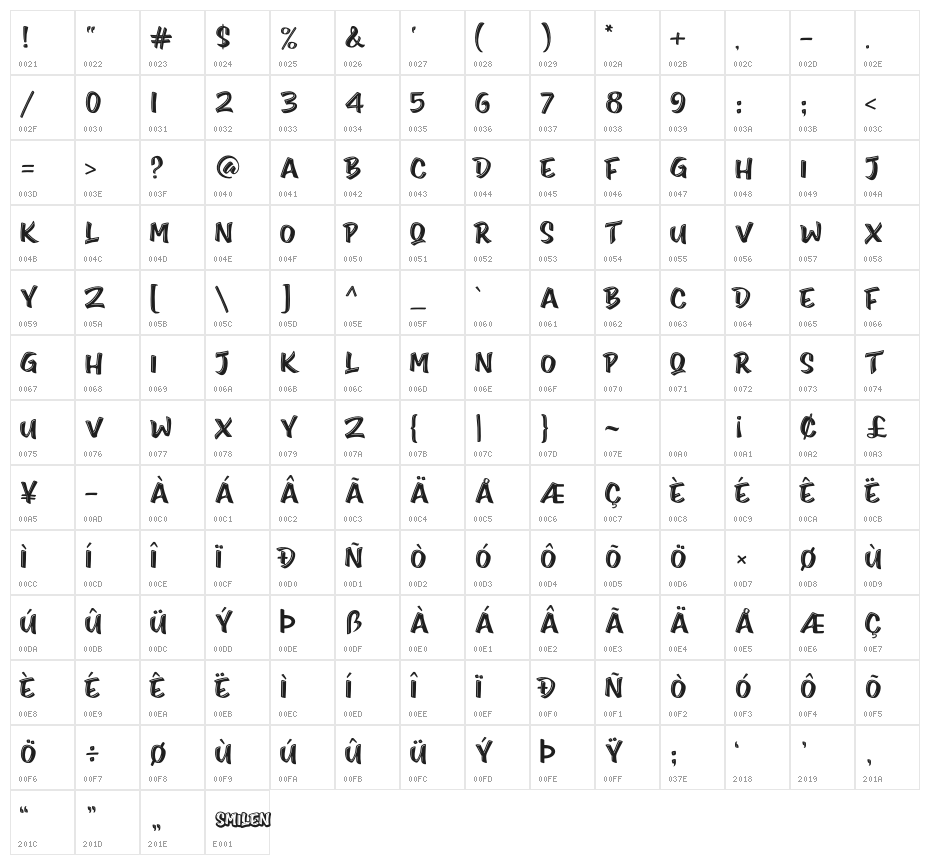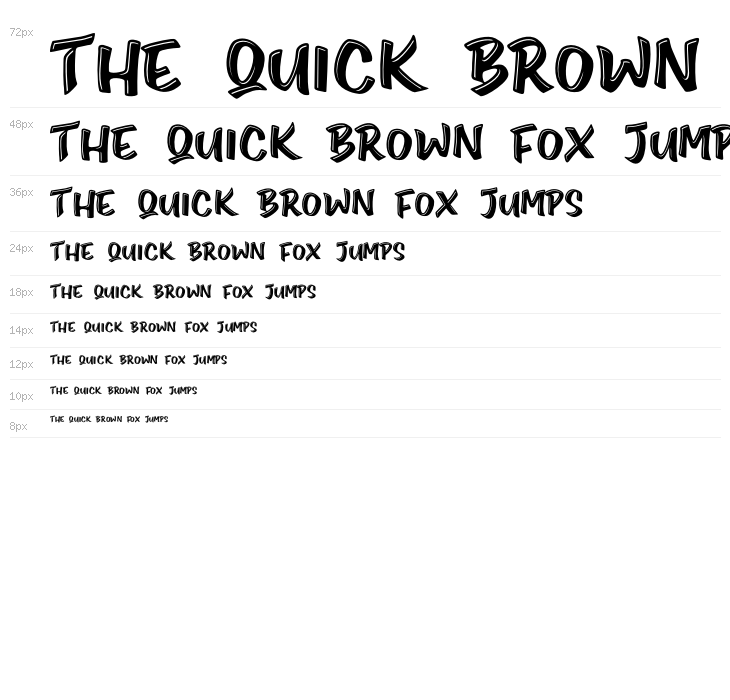
Smilen Font
Smilen Description
This font features a playful and energetic style, characterized by bold, rounded letters with a slight slant, giving it a dynamic and lively appearance. The strokes are thick and consistent, with a slight brush-like texture that adds a handcrafted feel. The uppercase and lowercase letters maintain a uniform height, contributing to a cohesive look. Numbers and special characters are designed with the same boldness and playful curves, ensuring readability and visual appeal. This font is perfect for projects that require a fun and informal touch, such as children's books, posters, or playful branding.
| Overall Style | Playful |
| Proposed Projects | Ideal for children's books, playful branding, posters, and informal invitations. |